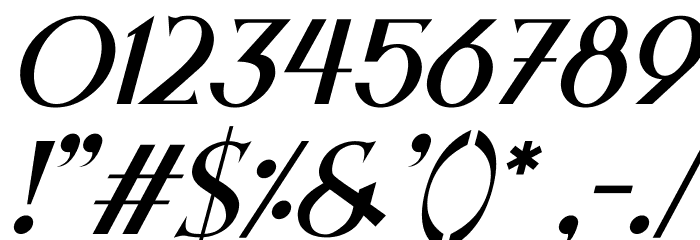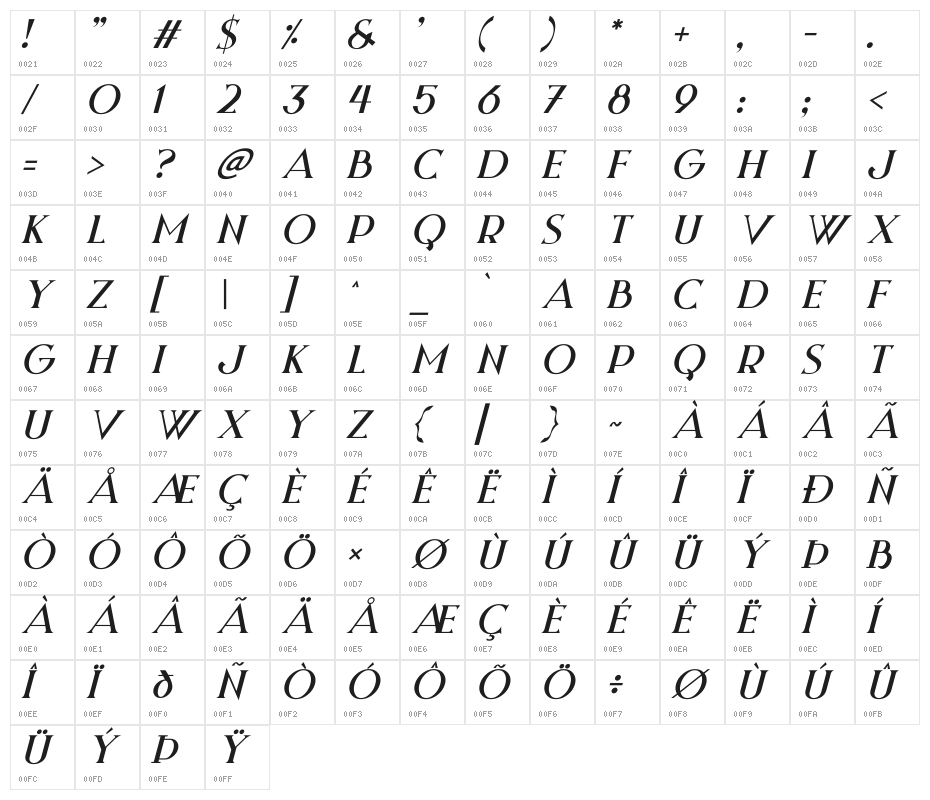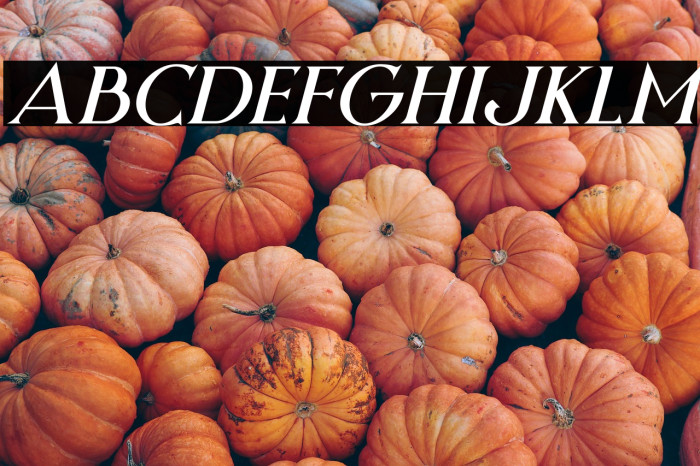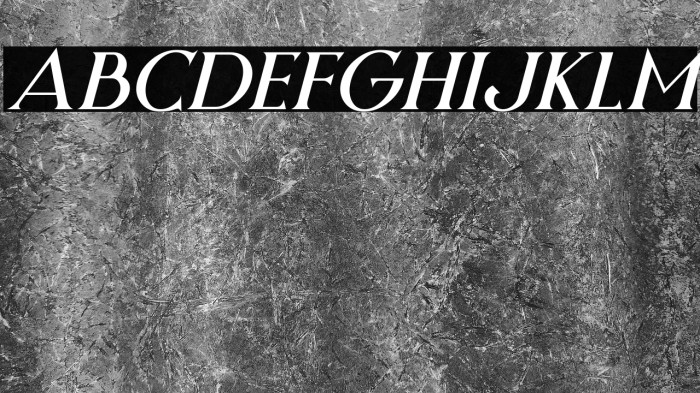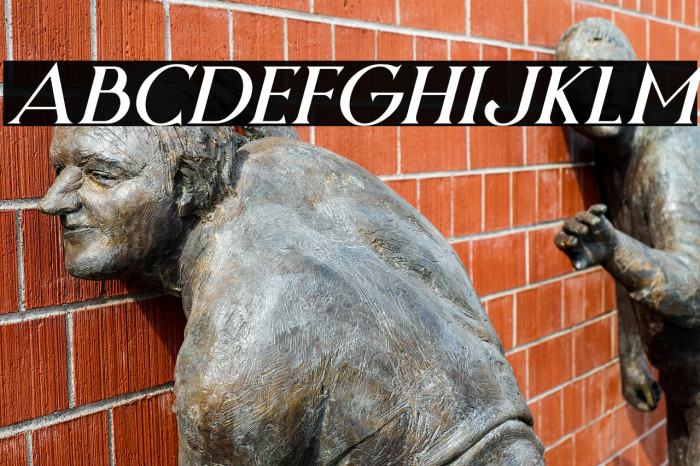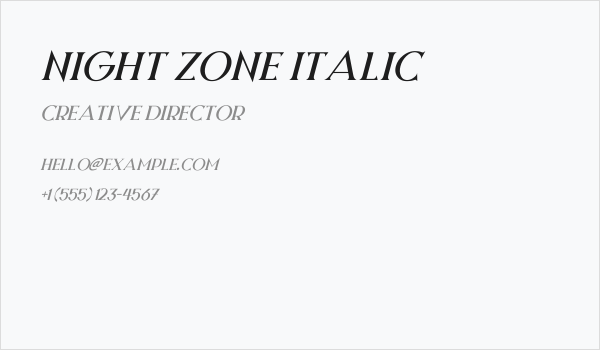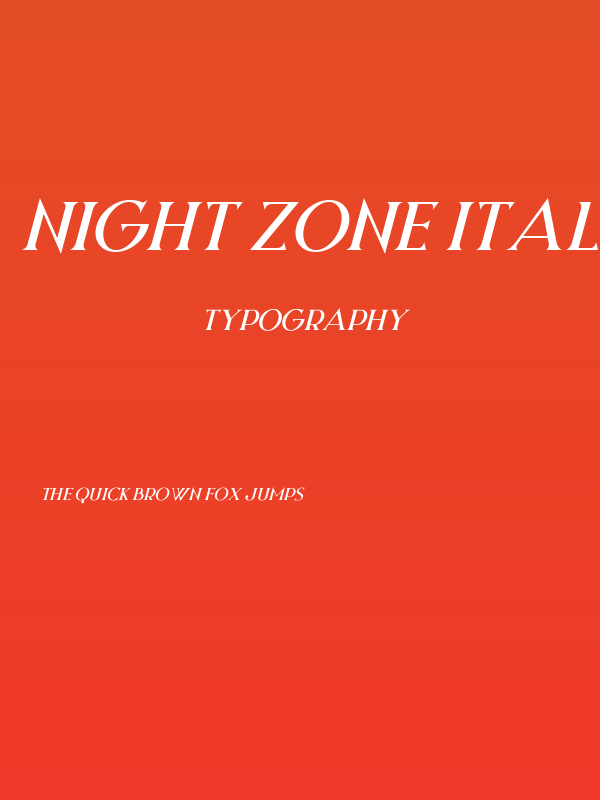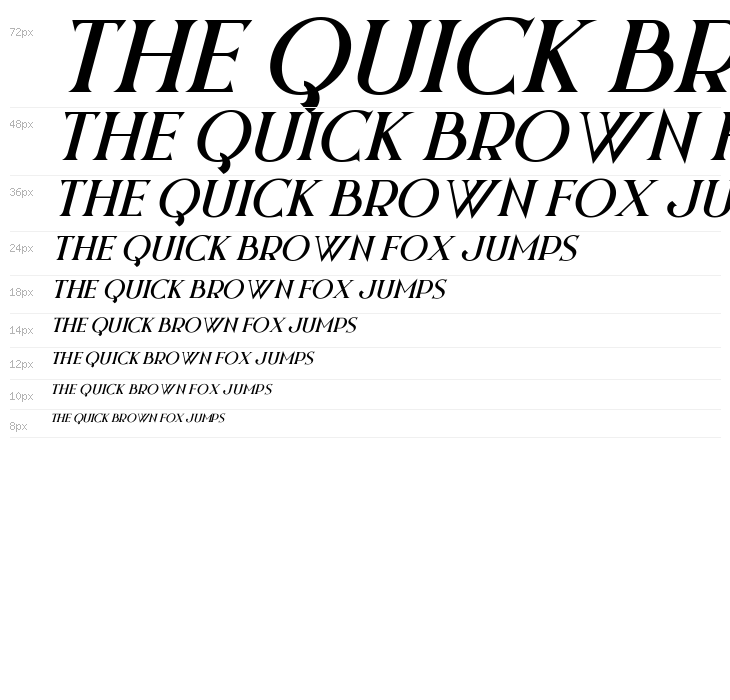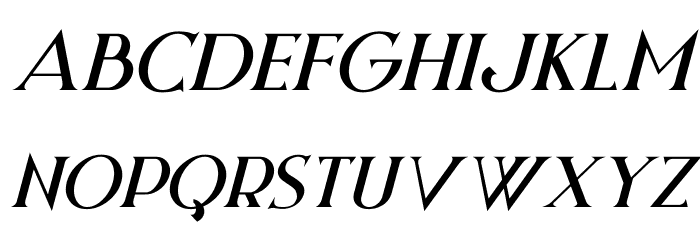
Night Zone Italic Font
Night Zone Italic Description
This font exudes a sophisticated and elegant style with its italicized form, featuring smooth, flowing lines and a slight slant that adds a dynamic feel. The characters are well-defined with sharp serifs, giving it a classic yet modern appearance. The uppercase letters are bold and commanding, while the lowercase letters maintain a graceful and refined look. Numbers are clear and distinct, complementing the overall aesthetic. Special characters are designed with the same attention to detail, ensuring consistency throughout. This font is ideal for projects that require a touch of elegance and sophistication.
| Proposed Projects | Ideal for luxury branding, wedding invitations, editorial design, and high-end product packaging. |